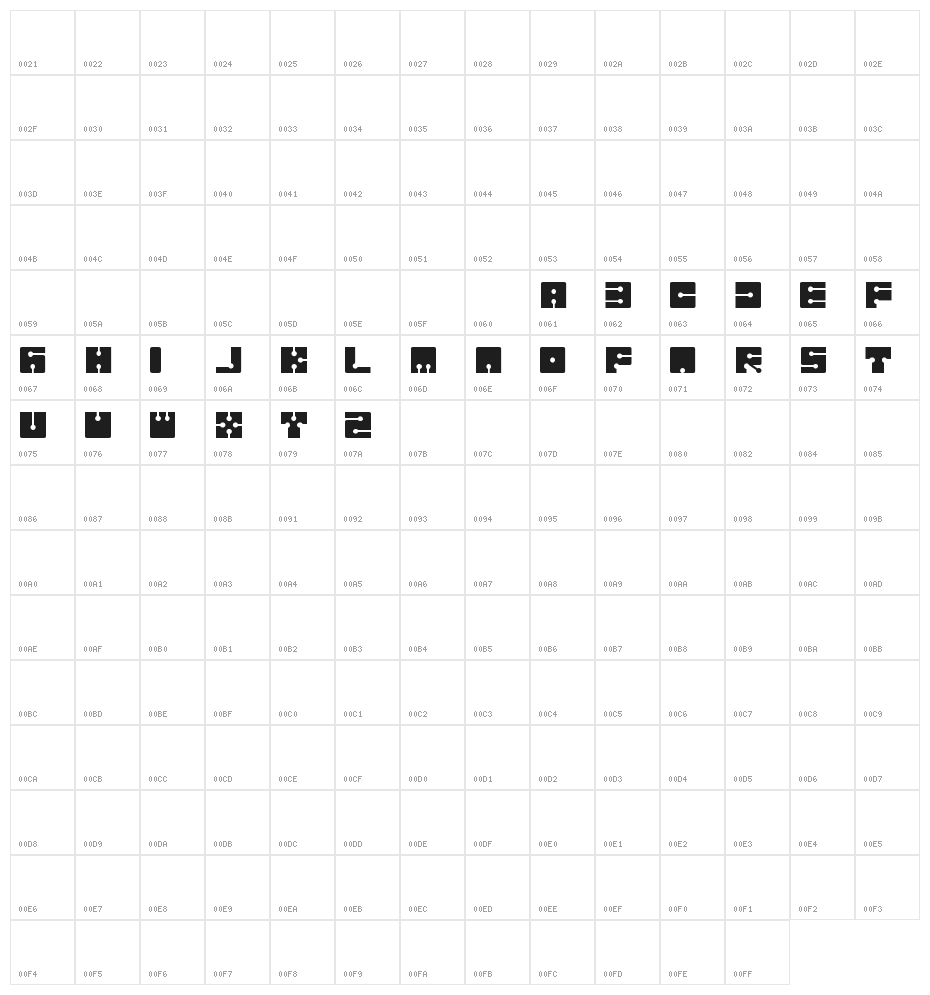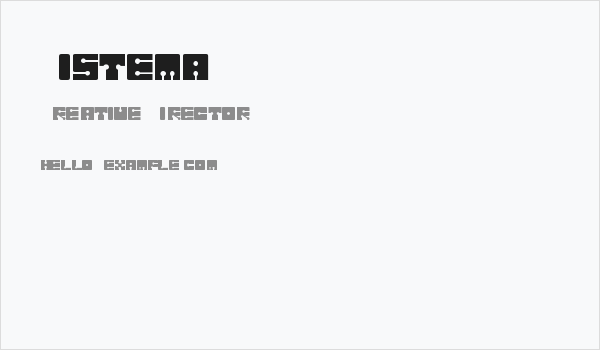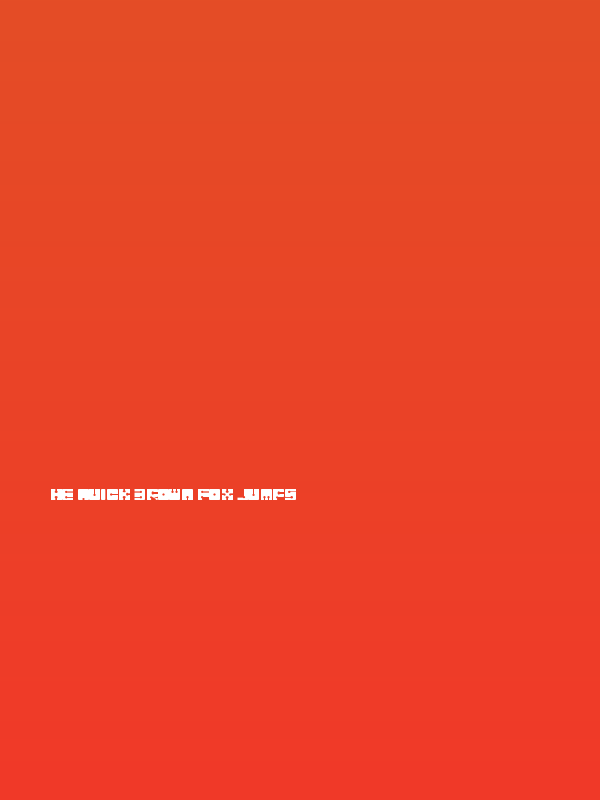
Sistema Font
Sistema Description
This font features a bold and geometric design with a distinct futuristic and mechanical aesthetic. Each character is enclosed within a solid rectangular block, giving it a strong and impactful presence. The letters are characterized by their uniform width and height, creating a cohesive and structured appearance. The use of circular cutouts and connecting lines within the letters adds a unique, almost circuit-like detail, enhancing its modern and technological feel. This font is highly stylized, making it suitable for projects that require a standout, avant-garde look.
| Overall Style | Futuristic, Modern |
| Proposed Projects | Ideal for technology branding, sci-fi themed posters, video game titles, and futuristic product packaging. |